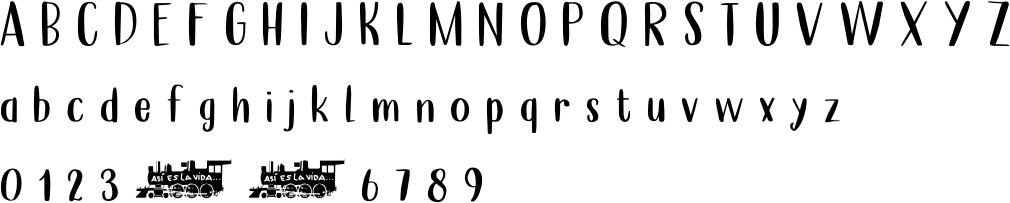
Perfect Day
Perfect Day Font
About the Perfect Day Font
Perfect Day is a stylish handmade font: it is cute, neat and happy. I can’t guarantee that this font will make your days perfect, but you can give it a go and see where it takes you!